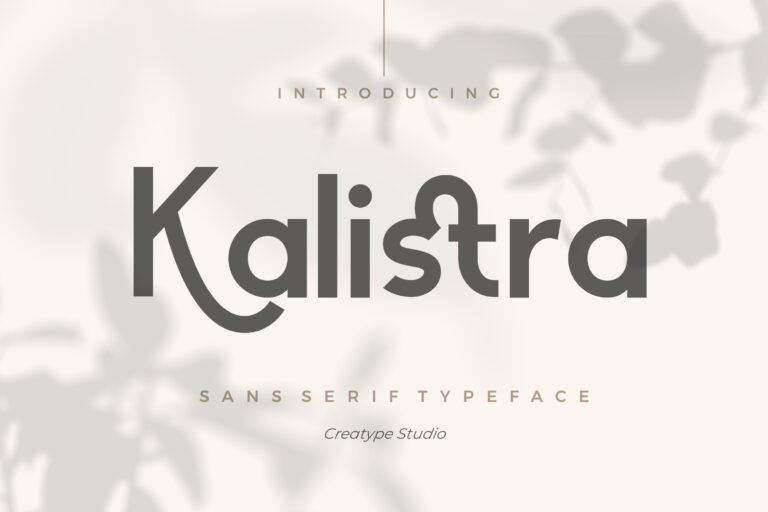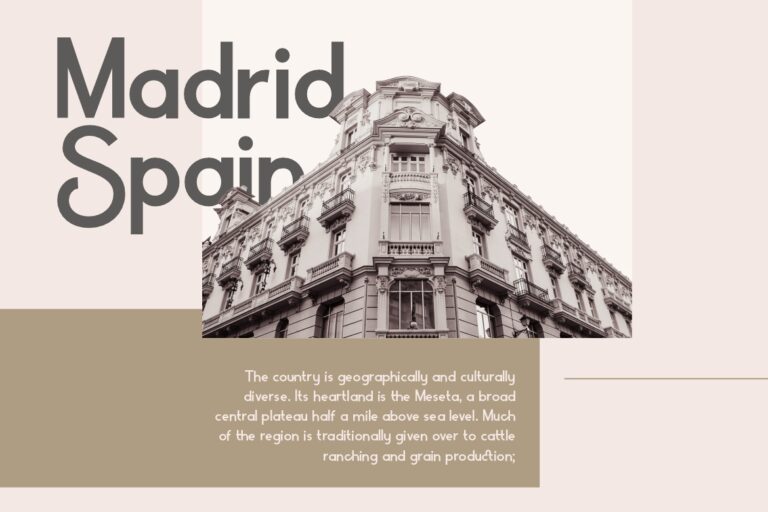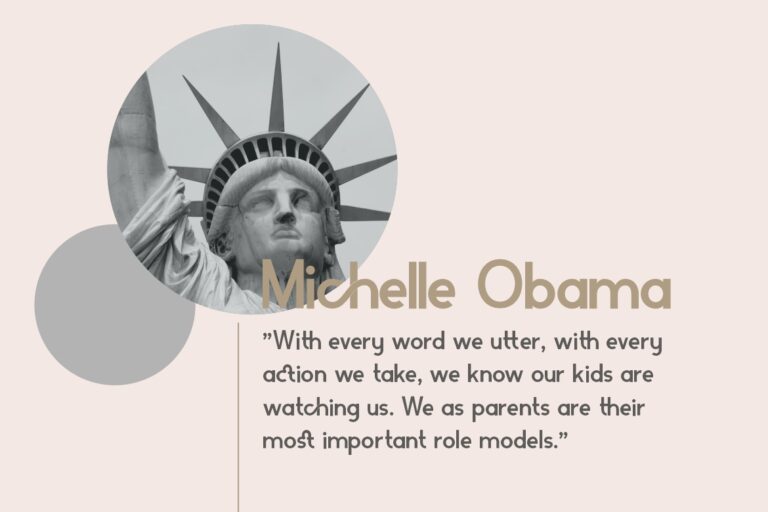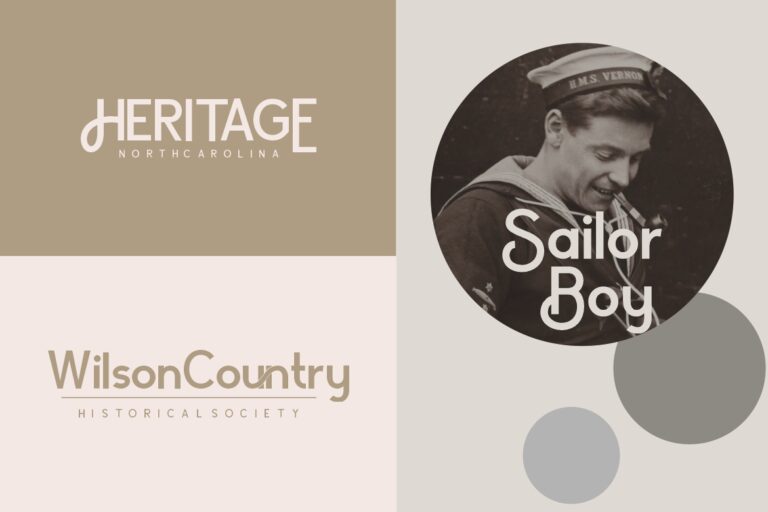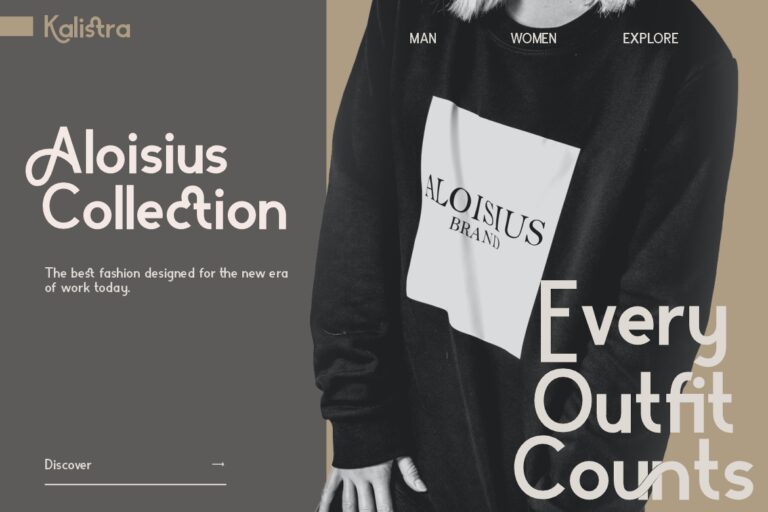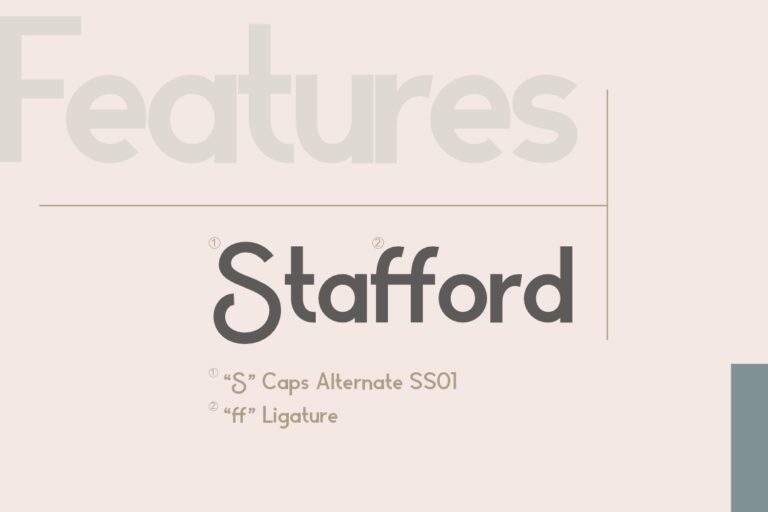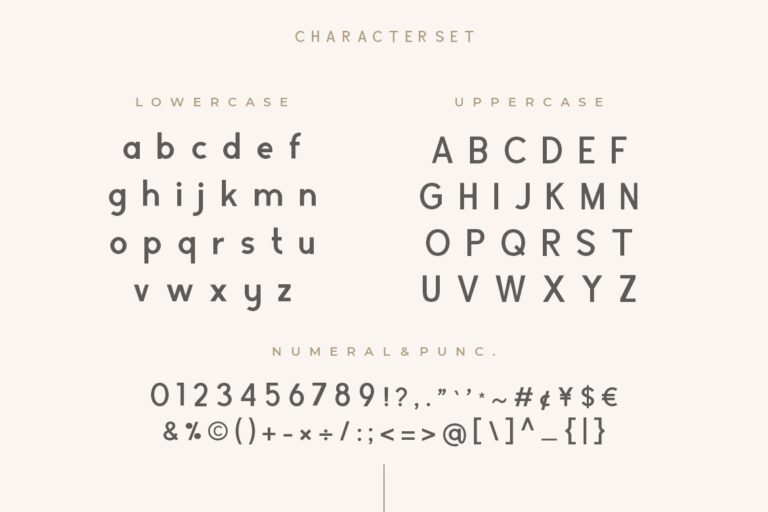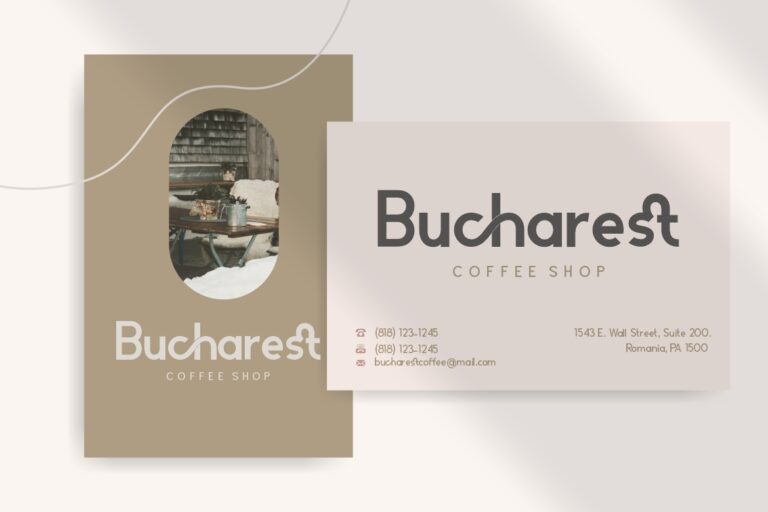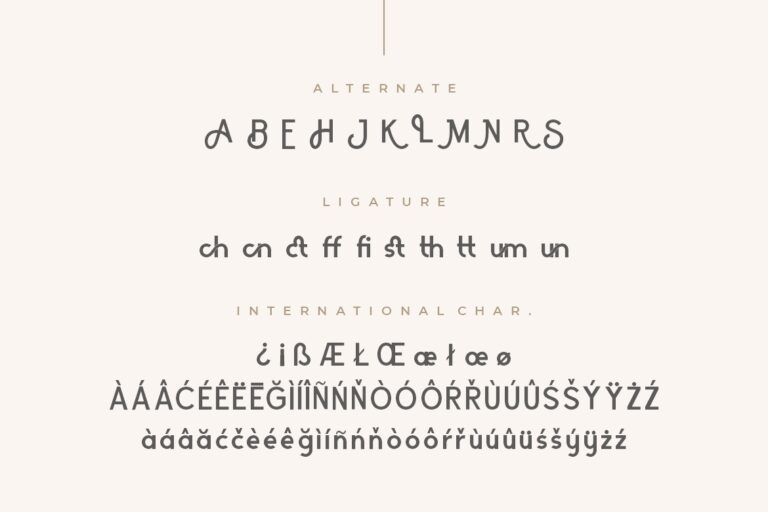
Kalistra a sans serif font looks stylish, elegant and sophisticated will perfect for your latest project.
Kalistra would perfect for photography, watermark, social media posts, advertisements, logos & branding, invitation, product designs, label, stationery, wedding designs, product packaging, special events or anything that need handwriting taste.
Kalistra Sans Serif Typeface